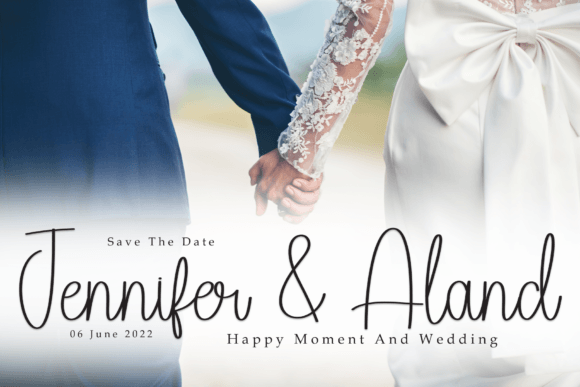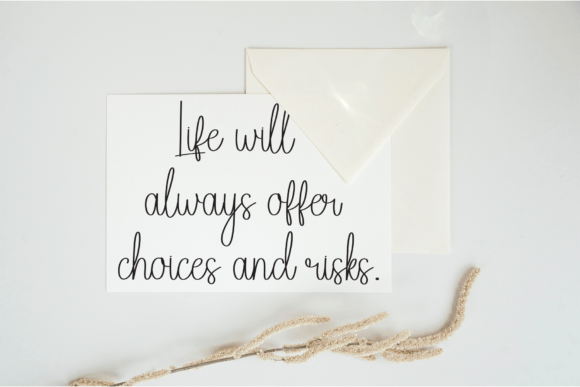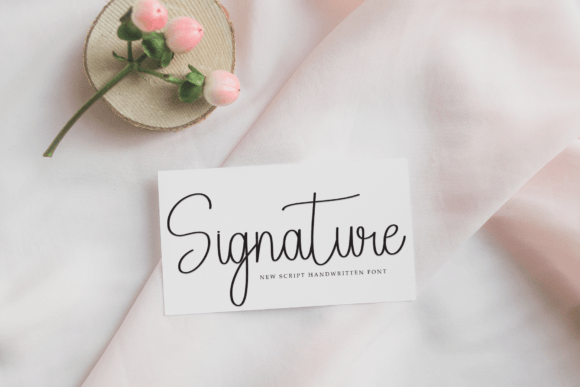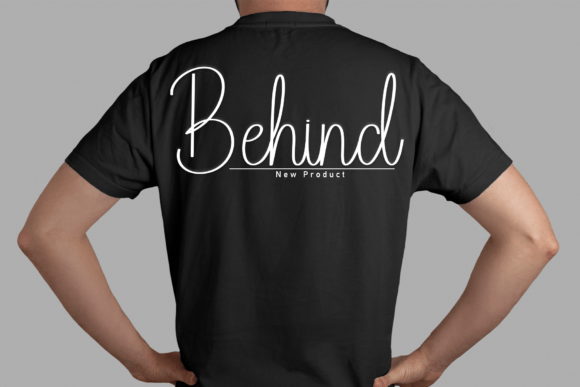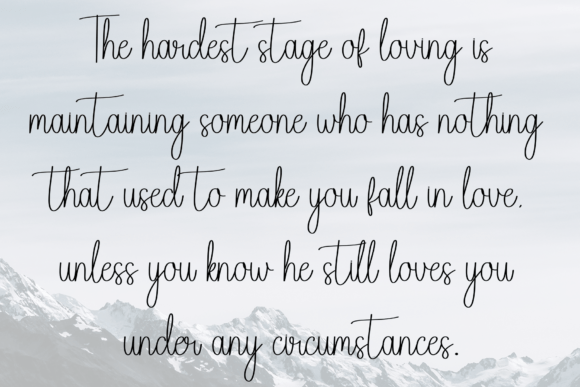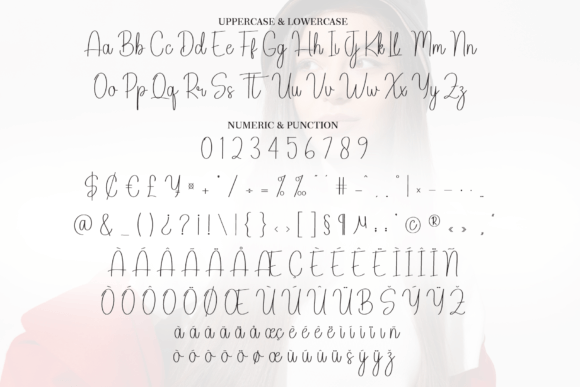
Cassandra Font: Elevate Your Designs with Elegance and Flair
Are you a designer or crafter looking for a font that embodies elegance, delicacy, and a touch of sophistication? Look no further than the Cassandra font. This beautiful, handwritten font is designed to add a touch of refinement to your creative projects, making it the perfect choice for a wide range of designs.
The Beauty of Cassandra Font
Cassandra is a delicate, elegant, and flowing handwritten font that boasts beautiful and well-balanced characters. Its unique charm lies in its ability to match a wide pool of designs, making it an incredibly versatile font for any creative project. Whether you’re working on a logo, branding materials, packaging, or digital content, Cassandra font is sure to make your designs come alive.
Key Features of Cassandra Font
- Delicate and Elegant: Cassandra font features a delicate and elegant design that adds a touch of sophistication to any project.
- Flowing Handwritten Style: The font’s flowing handwritten style gives it a personal and human touch, making it perfect for designs that require a more approachable and friendly feel.
- Well-Balanced Characters: Each character in the Cassandra font is carefully crafted to ensure perfect balance and harmony, making it easy to read and visually appealing.
- Versatile: Cassandra font can be used for a wide range of designs, from logos and branding materials to packaging, digital content, and more.
Why Choose Cassandra Font?
So, why should you choose Cassandra font for your next design project? Here are just a few reasons:
- Adds Elegance and Sophistication: Cassandra font adds a touch of elegance and sophistication to any design, making it perfect for high-end brands and luxury products.
- Stand Out from the Crowd: With its unique and delicate design, Cassandra font helps your designs stand out from the crowd and grab attention.
- Easy to Read: The font’s well-balanced characters and flowing style make it easy to read, even at small sizes.
- Perfect for Creative Projects: Cassandra font is perfect for designers and crafters who want to add a personal touch to their creative projects.
In conclusion, Cassandra font is a beautiful, elegant, and versatile handwritten font that’s perfect for designers and crafters looking to add a touch of sophistication to their creative projects. With its delicate design, well-balanced characters, and flowing style, Cassandra font is sure to make your designs come alive. So why wait? Add Cassandra font to your design toolkit today and start creating stunning designs that showcase your creativity and flair.